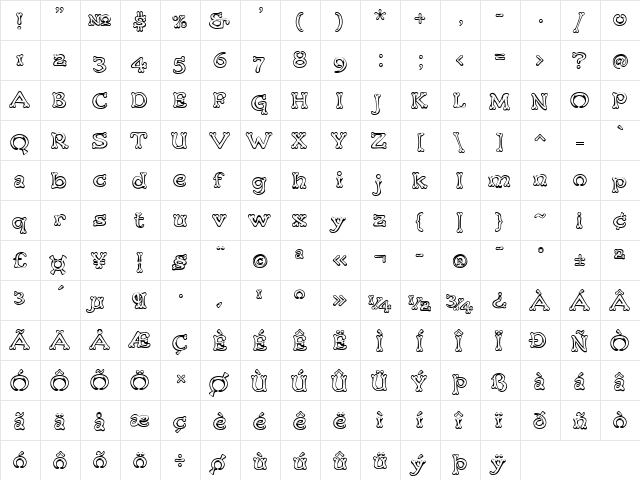
Teebone Medium Font Preview
Teebone Medium
Teebone Medium Font Details
| Foundry | \ Tomi Haaparanta, Finland |
Design Context for Teebone Typeface
Teebone is a composed and adaptable typeface that performs quietly and consistently across a wide range of design contexts.